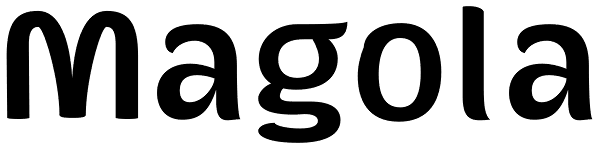
Magola
Magola is a creamy flavor font family whose purpose is to season with emotions the reading of words and phrases formed by puffy glyphs coated with a caramel of empty spaces external and internal. Independently or in groups, members of the family...